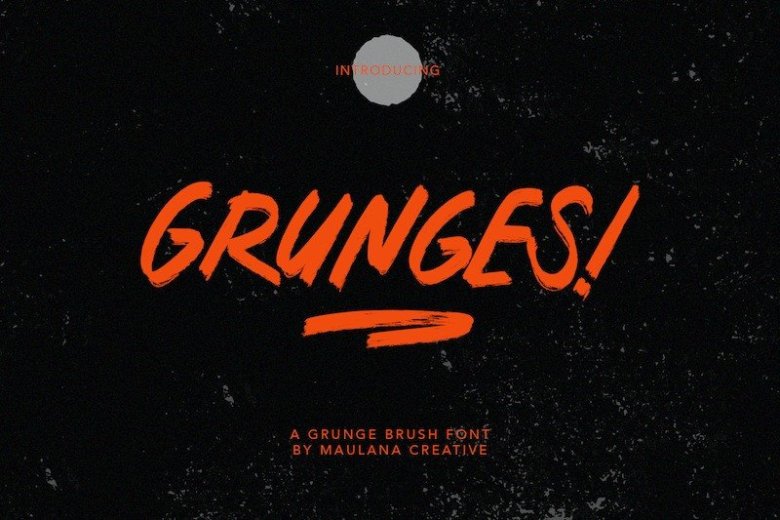
Grunges Font
Grunges Brush Font is an all-caps font created by Maulana Creative with alternate characters in the lowercase position, and comes with an additional italic version. This font is perfectly suited to signature, stationery, logo, typography quotes, magazine or book cover, website header, flyer, clothing, branding, packaging design and more.